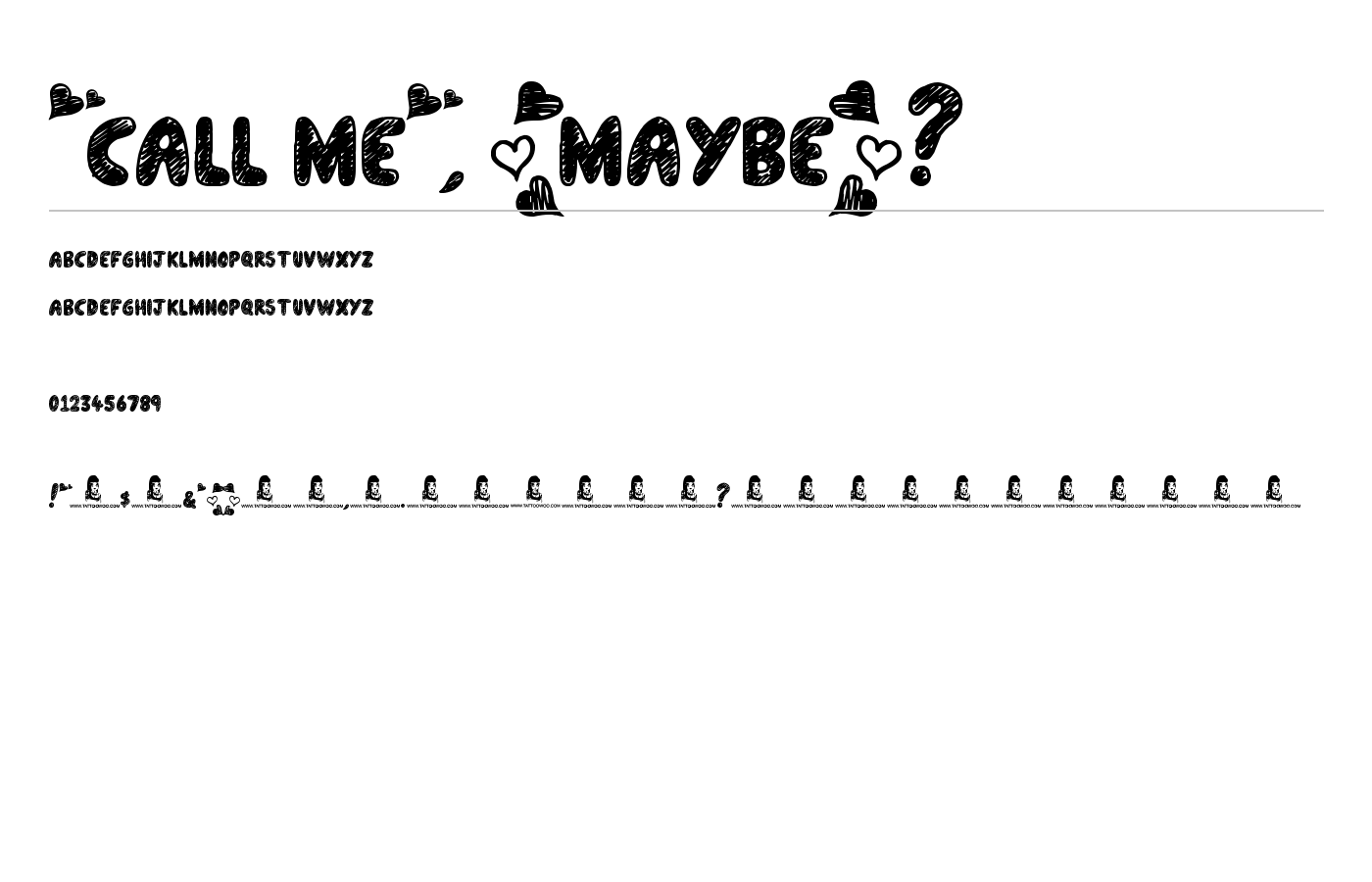
"Call Me", (Maybe)? is a playful and bold handwritten sans serif font characterized by its thick, slightly uneven strokes and cozy, informal vibe. Its rounded letterforms with textured shading and quirky heart decorations evoke a fun, youthful spirit, making it ideal for casual, creative designs like party invitations, greeting cards, and playful branding. This font brings a friendly, approachable mood that works best in headlines and decorative uses rather than formal or body text.
"Call Me", (Maybe)? Font